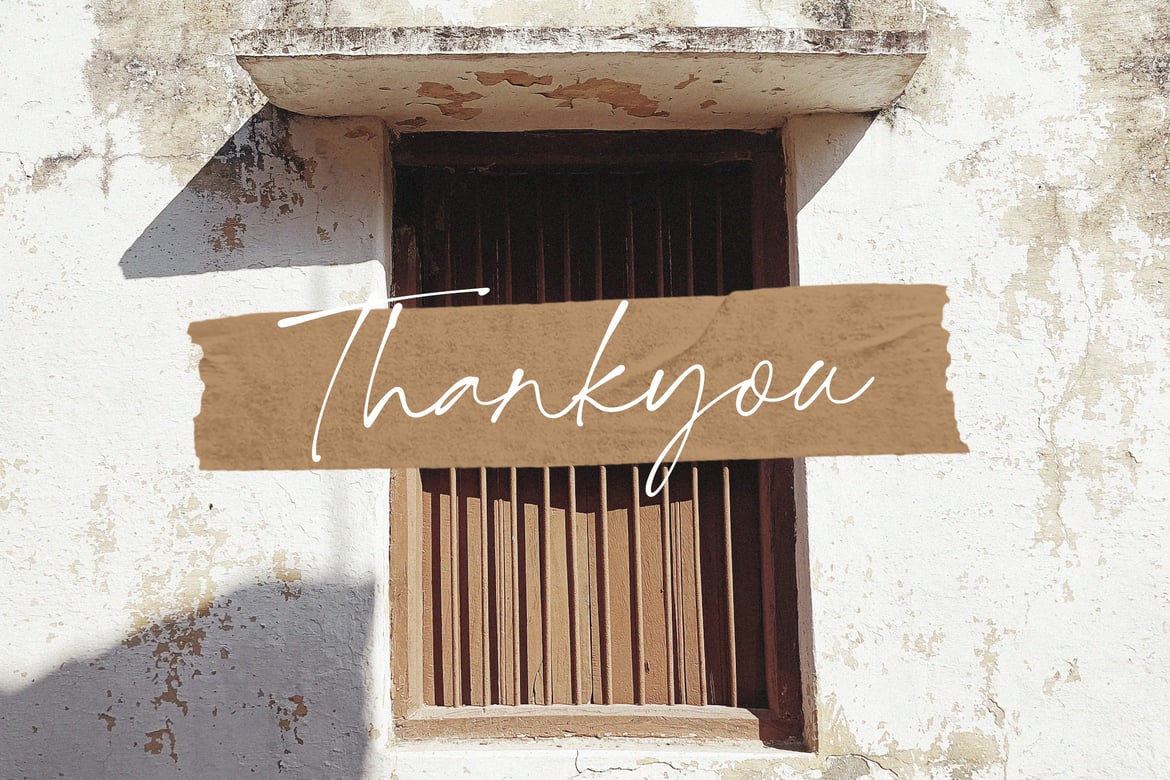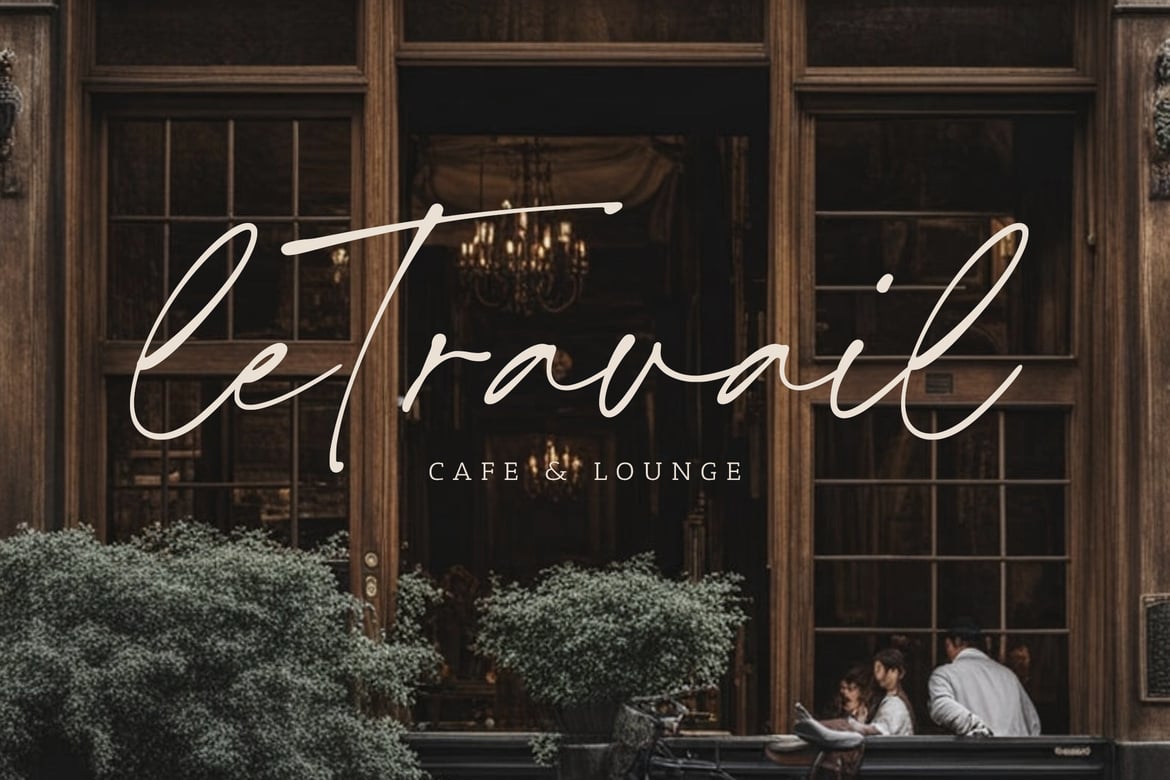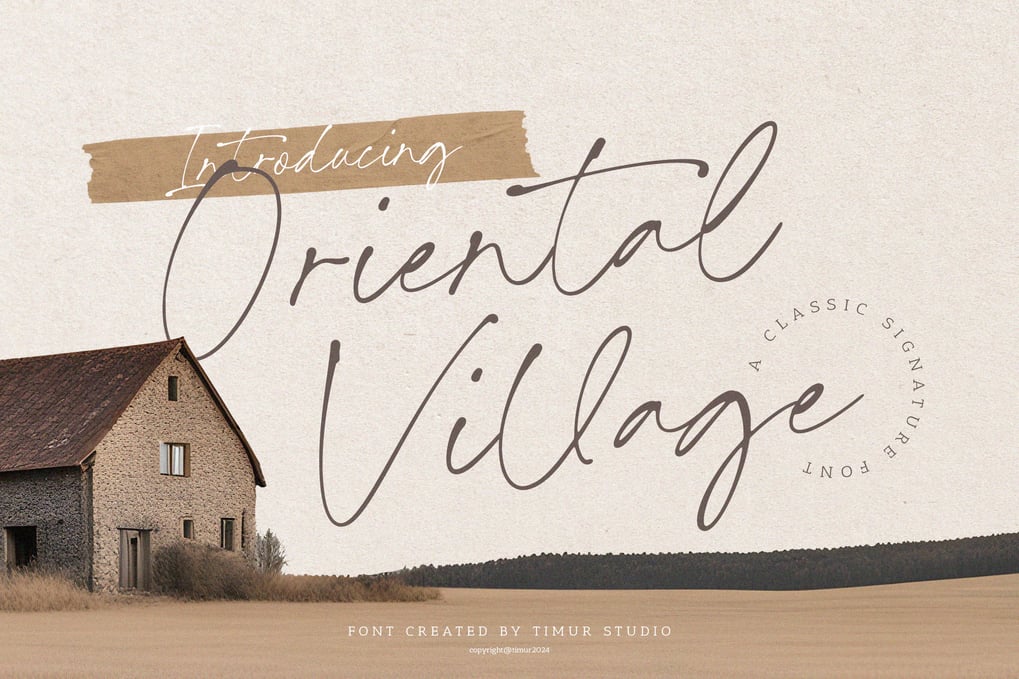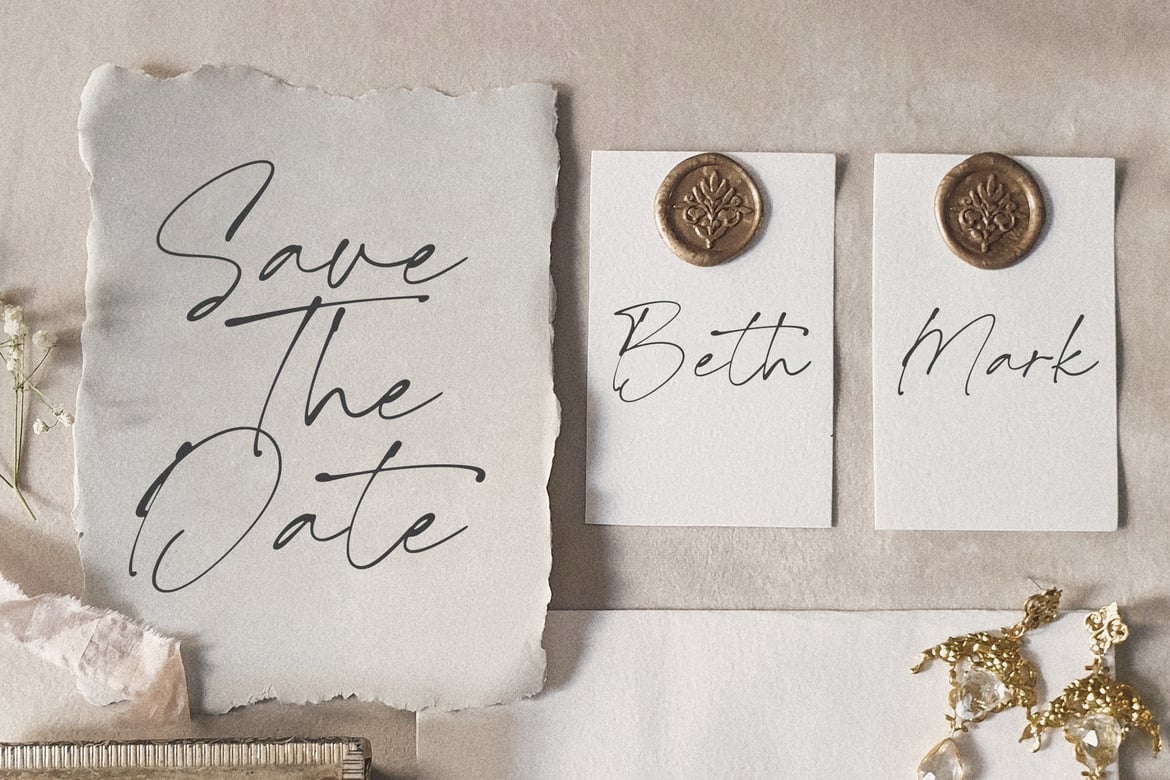
Oriental Village – Classic Signature Font TT
This font exudes timeless sophistication and elegance. With its refined and delicate letterforms, this font evokes the grace and charm of a handwritten signature. The flowing and ornate strokes give the Oriental Village font a luxurious and glamorous aesthetic, making it a perfect choice for high-end branding, invitations, and luxury packaging designs. Whether you’re aiming for a vintage-inspired look or a contemporary and chic feel, the Oriental Village font offers versatility and beauty. Embrace the timeless allure of the Oriental Village classic signature font and infuse your designs with a touch of refined elegance and sophistication.